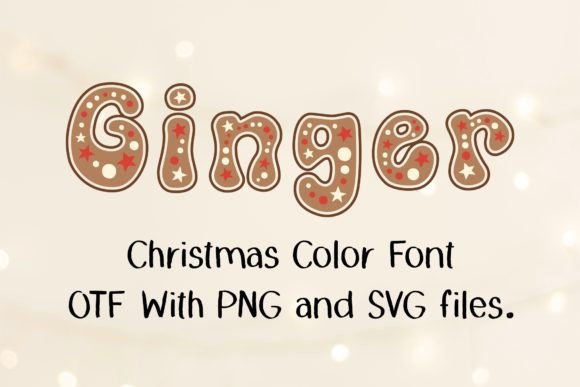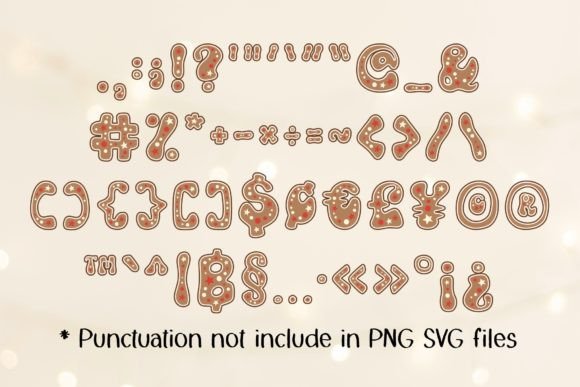
Gingerbread Font
Gingerbread is a cute and delicious color font. This font is the perfect fit for all of your t-shirts, social media, crafty DIY projects, and much more!